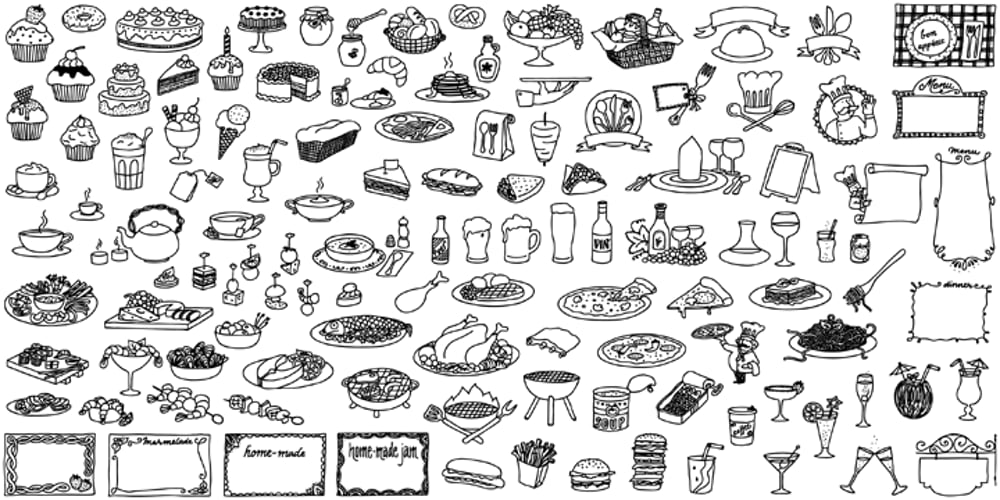
LiebeMenu Font Family was designed by Ulrike Rausch and published by LiebeFonts. LiebeMenu contains 1 styles and family package options. LiebeMenu is a comprehensive set of hand-drawn restaurant and menu essentials: Restaurant signs and menu labels, dishes with vegetables, meat, fish and cheese, and of course drinks and desserts. Whether you design professional menus for a gourmet restaurant or for your friend’s dinner party, LiebeMenu instantly adds a warm personal touch. Over 110 carefully crafted drawings are included in this single font and can be used in any text or graphics application. If you like this font, you may also like our cooking ingredients font LiebeCook and our decorative restaurant phrases font LiebeMenuLettering.